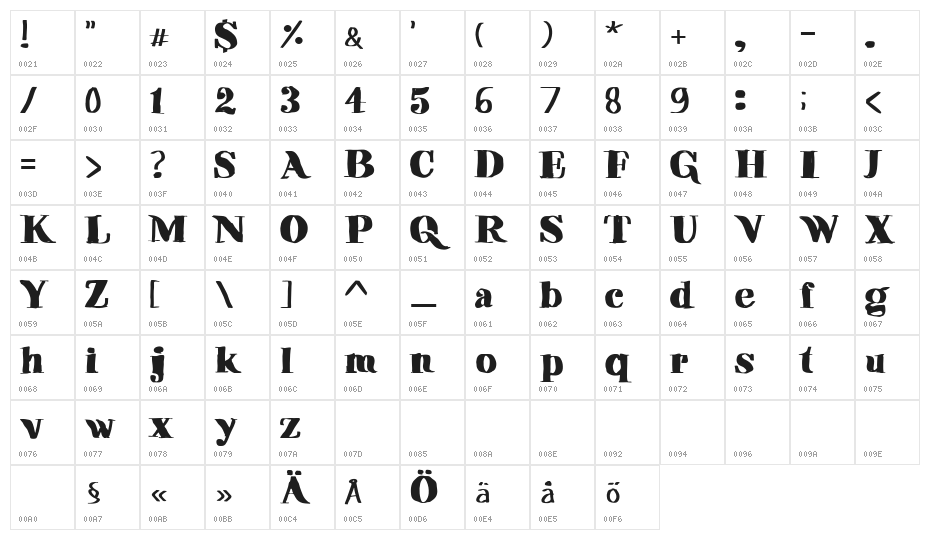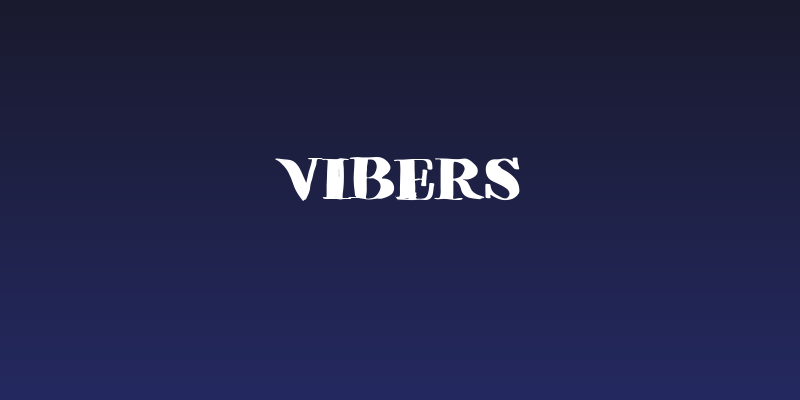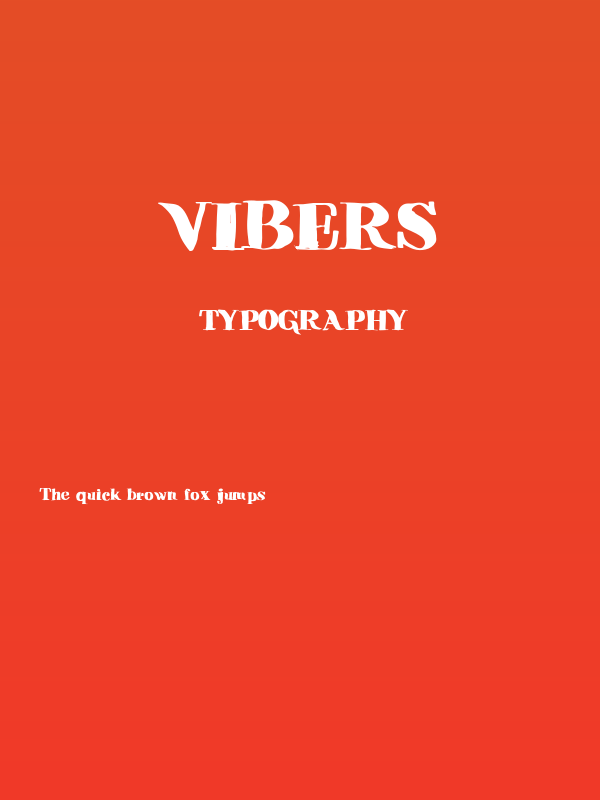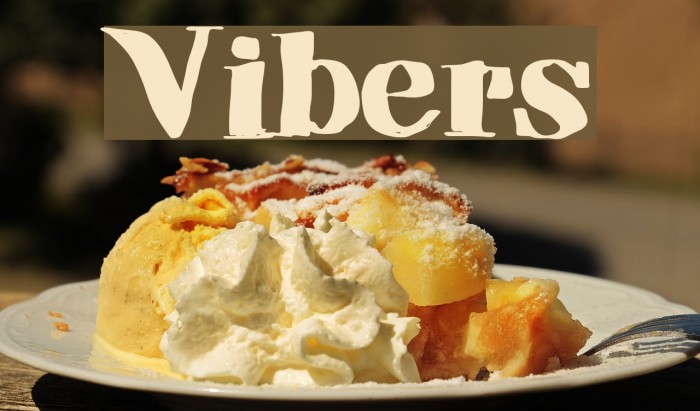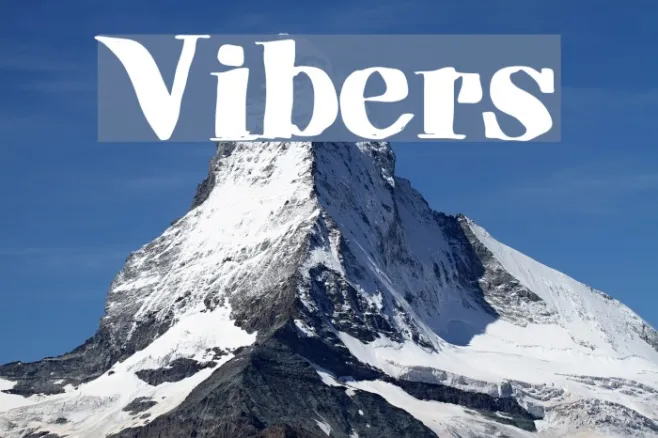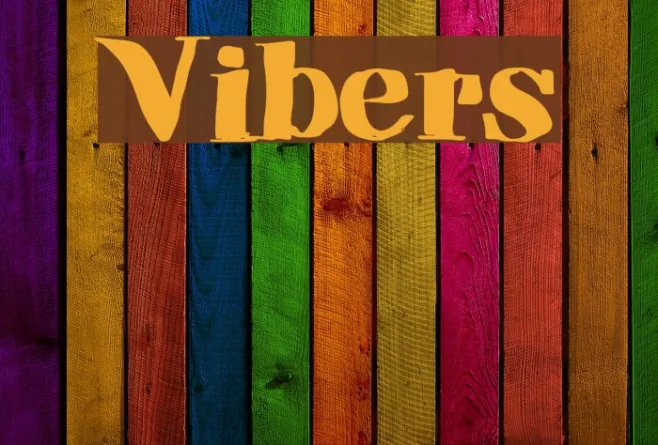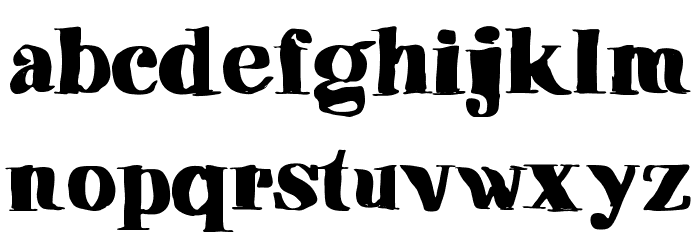
Vibers Font
Vibers Description
This font features a bold and dramatic style with a strong presence. The characters are heavily stylized, with thick strokes and a slightly distressed appearance that adds a vintage feel. The uppercase letters are particularly striking, with sharp serifs and a sense of movement. Lowercase letters maintain the same boldness, ensuring consistency throughout. Numbers and special characters are equally bold, making them stand out. This font is ideal for projects that require a strong, eye-catching typeface with a touch of nostalgia.